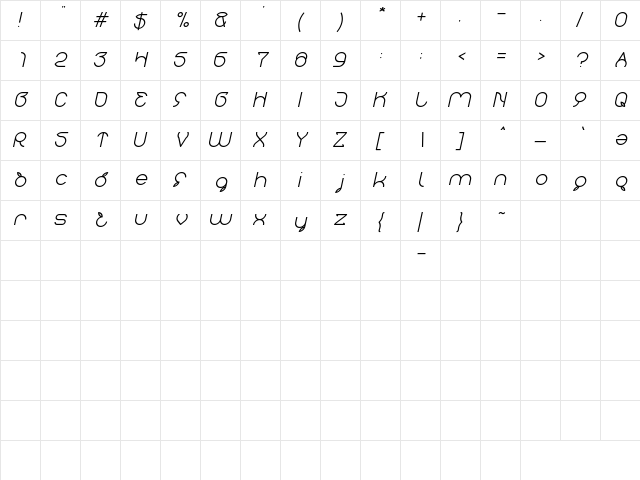
thefotosintesis Italic
Design Context for thefotosintesis Typeface
thefotosintesis takes a measured approach to typography — its balanced proportions and neutral character make it a reliable workhorse for both digital and print work. Its italic angle brings a sense of urgency and motion to the letterforms.
Pro Tip: Use thefotosintesis for emphasis, pull quotes, and subheadings where its slanted energy can add rhythm to the layout.